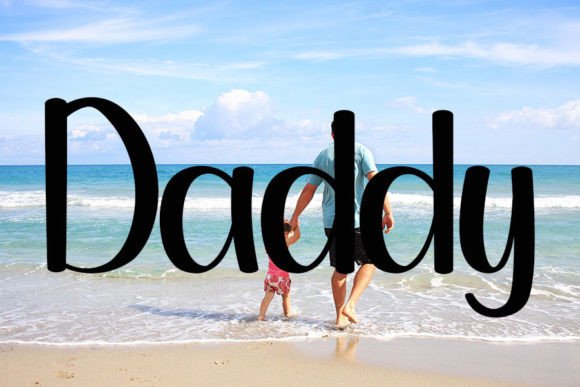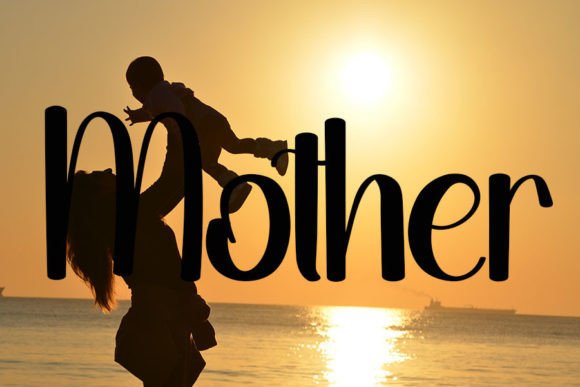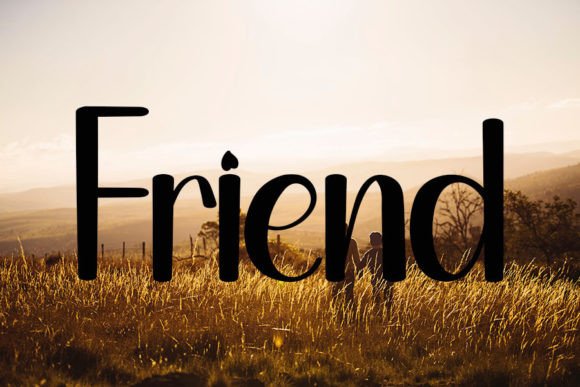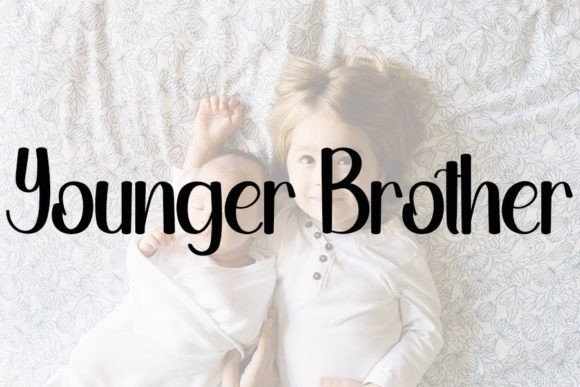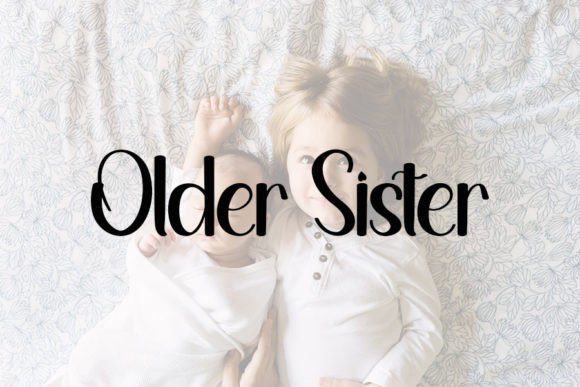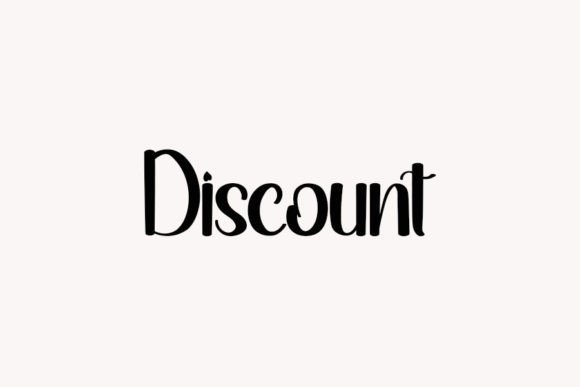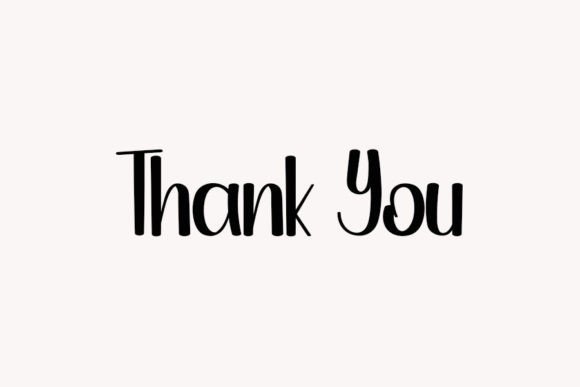
Family Font
Add Elegance and Warmth with Family Font
Family Font is a neat and beautiful handwritten typeface that adds an elegant touch to your favorite creative projects. Its distinct and timeless style makes it perfect for a wide range of designs. Whether you are creating invitations, branding materials, or social media posts, Family Font brings a polished and refined look.
Moreover, the font’s smooth strokes and balanced design give your work a classic yet fresh feel, ensuring your projects stand out beautifully.
Versatile Uses for Family Font
Family Font fits well in many different design projects, including:
• Wedding and event invitations
• Brand logos and corporate identities
• Social media posts and digital content
• Posters, flyers, and promotional materials
• Product packaging and labels
Thanks to its elegant handwritten style, FamilyFont adds warmth and sophistication to both formal and casual designs.
It also features well-spaced letters and optimized kerning to keep your text readable and visually appealing across different sizes and formats.
Why Designers Choose Family Font
Designers and creatives appreciate FamilyFont for its elegant and timeless handwriting style. It adds a personal and professional touch that enhances the beauty of any project. Whether you are a professional or a hobbyist, FamilyFont is a versatile and lovely choice for your typography needs.
Use FamilyFont to bring charm and style to your next creative design.